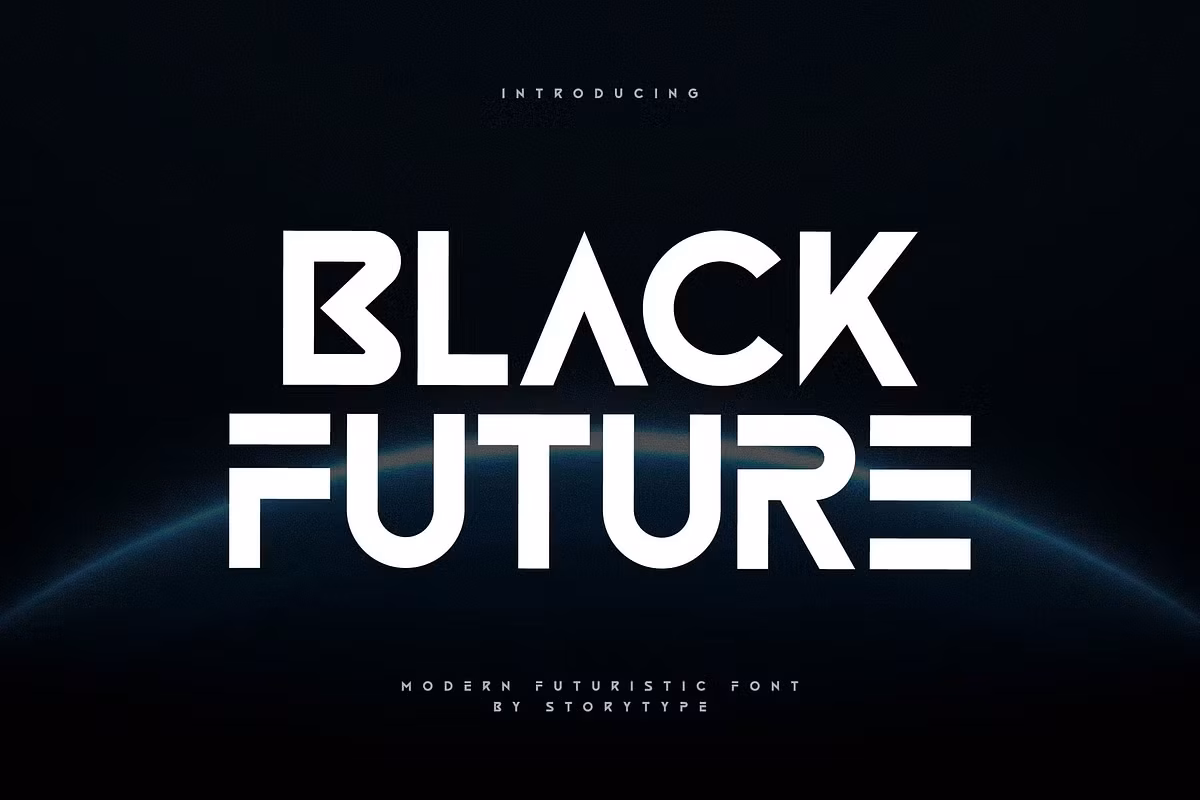
Black Future Modern Futuristic Font Free Download
Black Future – Modern Futuristic Font Free Download is a bold and cutting-edge typeface designed to embody innovation, technology, and forward-thinking design. Please note, you are required to purchase this font for commercial use. It is available for free download for testing and personal projects only.
With its sharp angles, sleek geometry, and sci-fi-inspired aesthetic, Black Future is perfect for tech branding, gaming titles, movie posters, digital interfaces, cyberpunk visuals, and space-themed projects. It commands attention with its high-impact look and clean, futuristic structure.